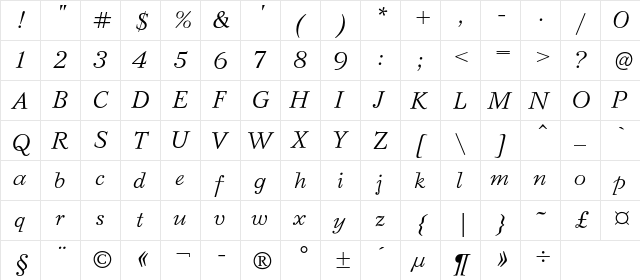
BazhanovC Italic
Design Context for BazhanovC Typeface
BazhanovC takes a measured approach to typography — its balanced proportions and neutral character make it a reliable workhorse for both digital and print work. Its italic angle brings a sense of urgency and motion to the letterforms.
Pro Tip: Use BazhanovC for emphasis, pull quotes, and subheadings where its slanted energy can add rhythm to the layout.